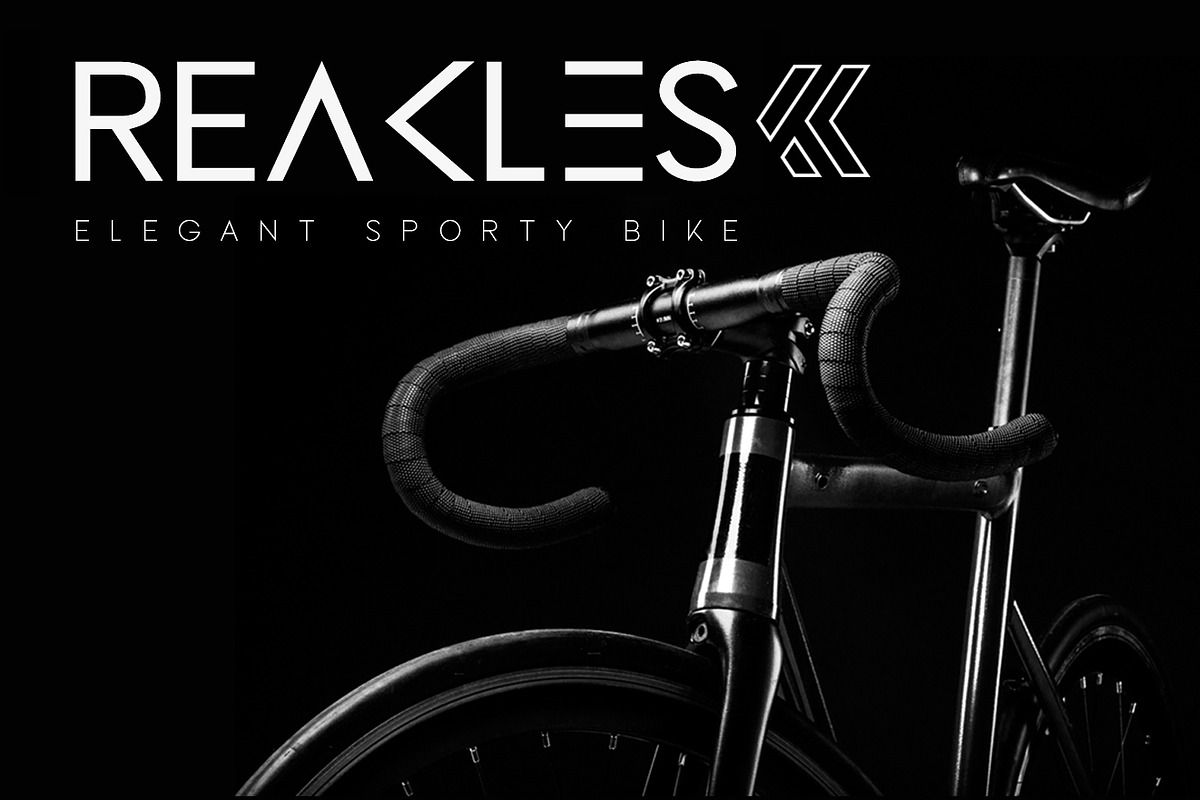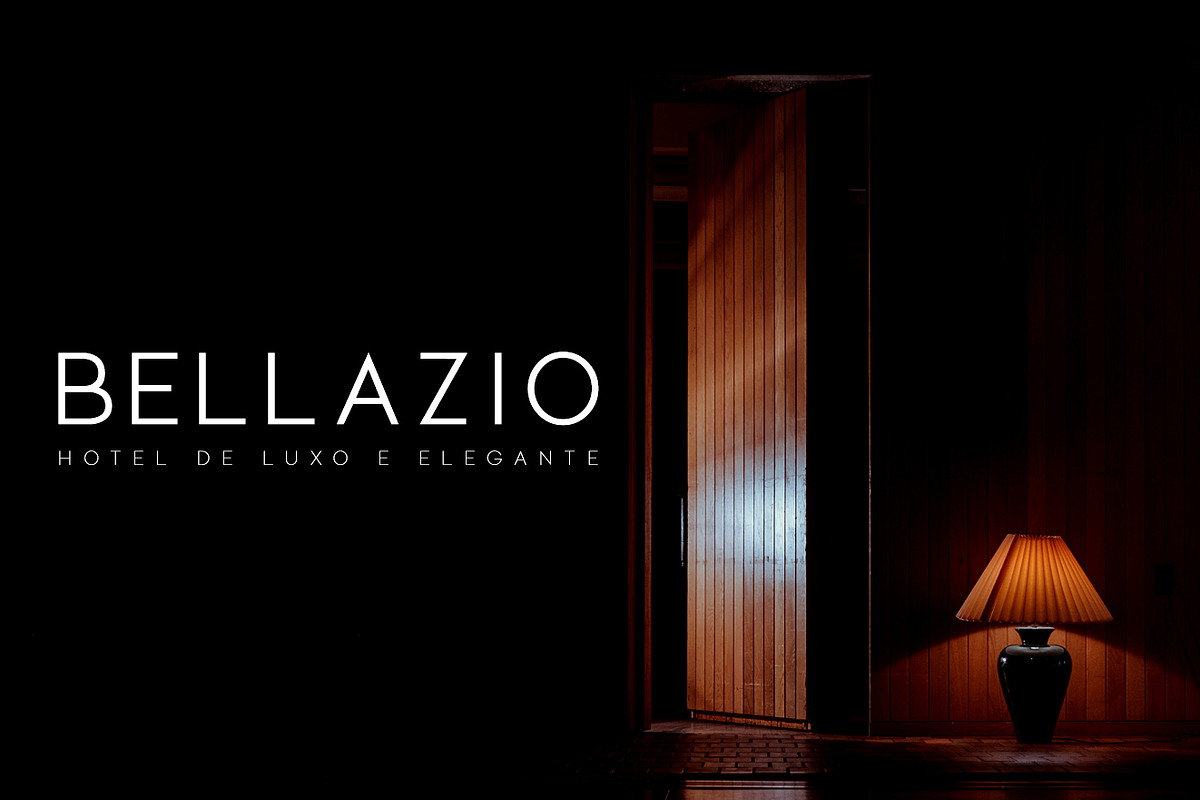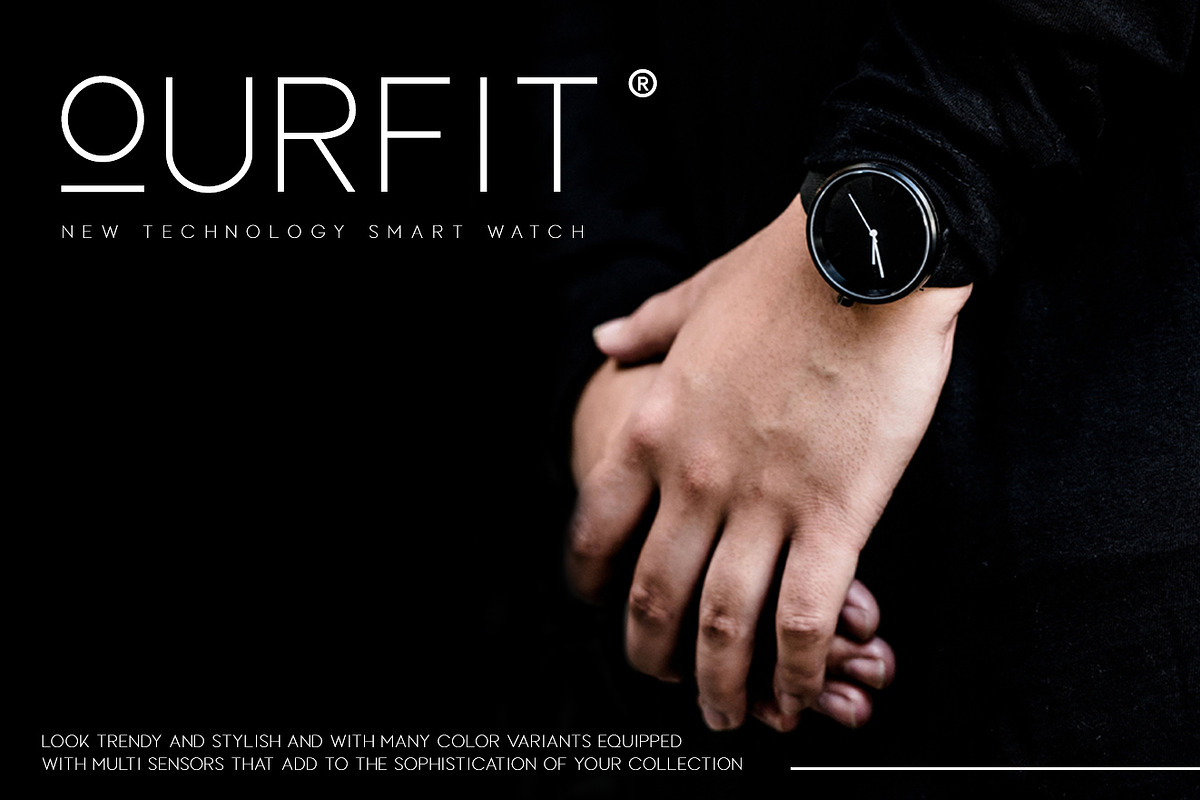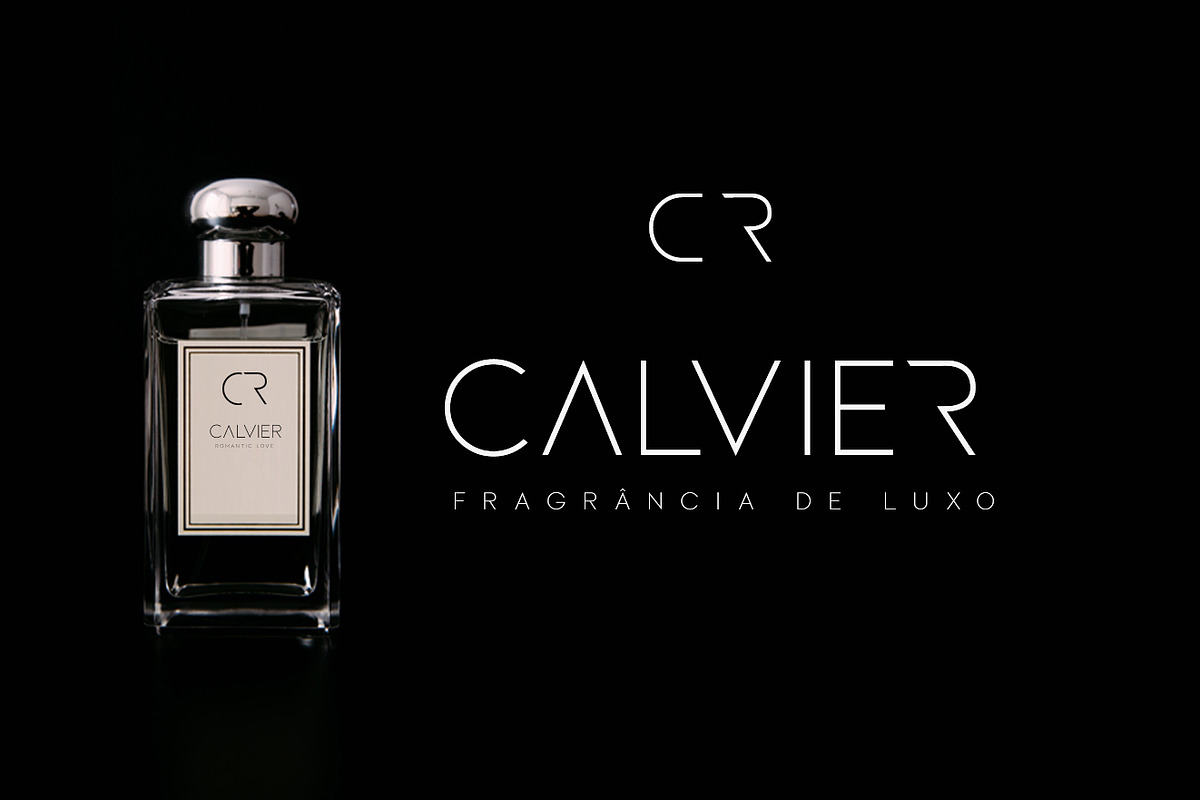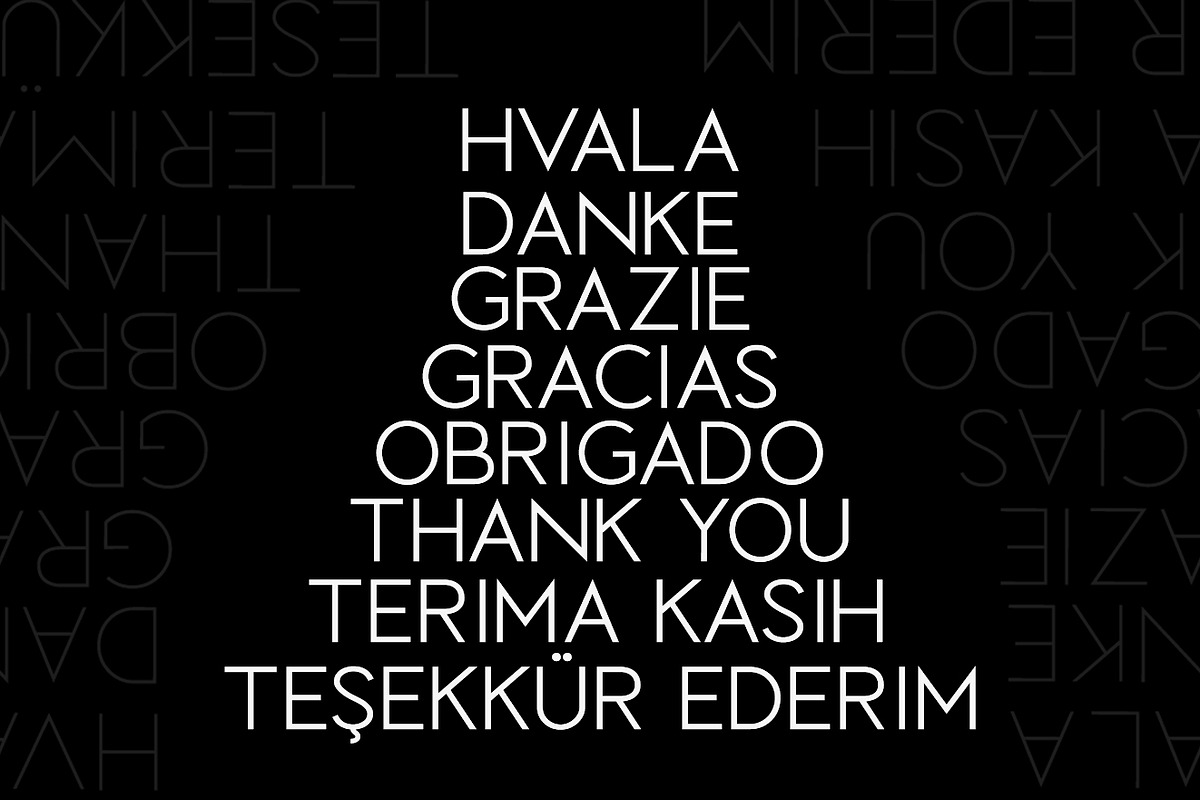
LOVES - Classy Sans Family
INTRODUCING
LOVES Classy Sans Family Our latest product inspired by the famous logo is simple but classy, made with precision and measured. very good for combining your design work with a clear line and a circle with several different weights that are very comfortable in the design area you are easy to read and as a title on a blog or magazine page
Classy Sans Family Loves has symbols and punctuation and unique alternative letters perfect for logos & branding, photography, invitation, watermark, advertisements,product designs, stationery, wedding designs,label ,product packaging